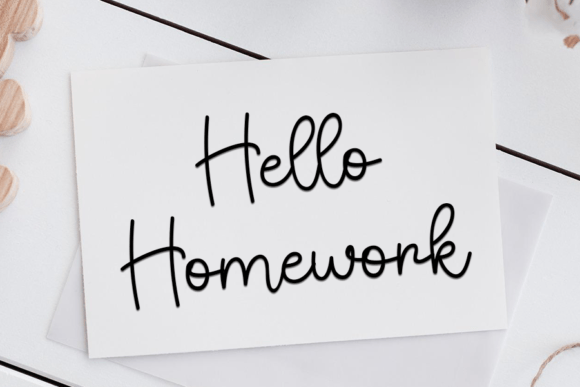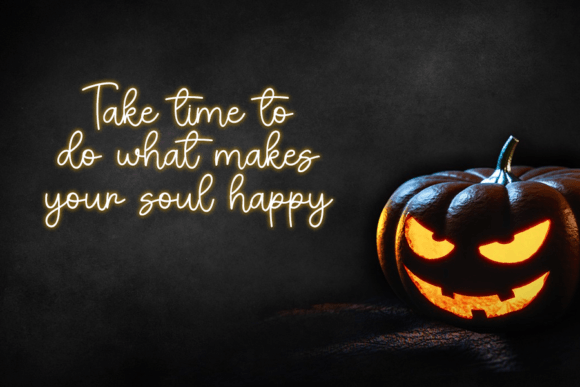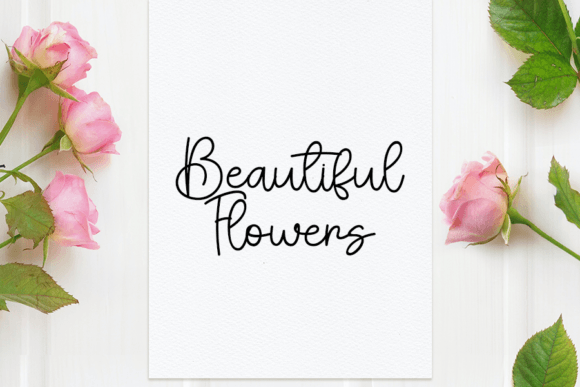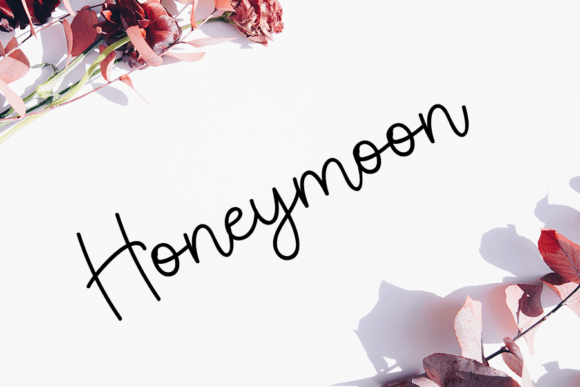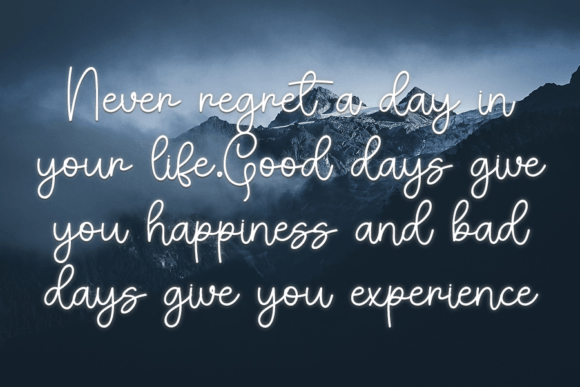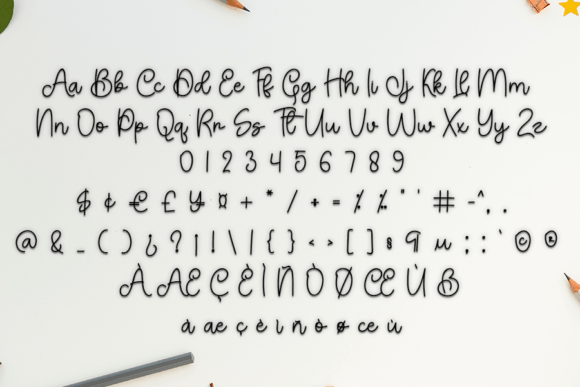
Hello Belove Font: A Delicate Handwritten Font for Romantic Designs
Hello Belove is a beautiful, delicate handwritten font that has been carefully crafted to add a touch of romance and uniqueness to your designs. This lovely font is perfect for creating stunning letters, invitations, food product labels, titles, and more. In this article, we’ll explore the features and benefits of Hello Belove Font, and how it can elevate your design projects.
What is Hello Belove Font?
Hello Belove Font is a carefully designed, handwritten font that exudes elegance and sophistication. Its delicate strokes and intricate details make it perfect for creating romantic and whimsical designs. The font is versatile and can be used for a wide range of projects, from wedding invitations and greeting cards to food labels and titles.
Key Features of Hello Belove Font
- Delicate Handwritten Style: Hello Belove Font features a delicate, handwritten style that is perfect for creating romantic and unique designs.
- Carefully Crafted: The font has been carefully crafted to ensure that every letter and stroke is precise and elegant.
- Versatile: Hello Belove Font can be used for a wide range of projects, including letters, invitations, food products, titles, and more.
- Elegant and Sophisticated: The font’s elegant and sophisticated design makes it perfect for creating high-end designs.
Benefits of Using Hello Belove Font
Using Hello Belove Font can bring numerous benefits to your design projects. Here are a few:
- Adds a Touch of Romance: The font’s romantic and whimsical design can add a touch of elegance and sophistication to your projects.
- Unique and Eye-catching: Hello Belove Font is unique and eye-catching, making it perfect for creating designs that stand out from the crowd.
- Easy to Read: Despite its delicate design, Hello Belove Font is easy to read, making it perfect for creating designs that require a personal touch.
- Customizable: The font can be customized to fit your design needs, allowing you to create unique and personalized designs.
Use Cases for Hello Belove Font
Hello Belove Font is versatile and can be used for a wide range of projects. Here are a few use cases:
- Wedding Invitations: The font’s romantic design makes it perfect for creating stunning wedding invitations.
- Greeting Cards: Hello Belove Font can be used to create beautiful and elegant greeting cards for special occasions.
- Food Labels: The font’s delicate design makes it perfect for creating labels for food products, such as baked goods, chocolates, and more.
- Titles and Headings: Hello Belove Font can be used to create elegant and sophisticated titles and headings for blogs, websites, and more.
Tips for Using Hello Belove Font
Here are a few tips for using Hello Belove Font:
- Pair with Other Fonts: Hello Belove Font can be paired with other fonts to create a unique and eye-catching design.
- Use for Headings and Titles: The font is perfect for creating headings and titles that require a personal touch.
- Experiment with Colors: Hello Belove Font can be used with a variety of colors to create a unique and eye-catching design.
Hello Belove Font is a beautiful, delicate handwritten font that is perfect for creating romantic and unique designs. Its elegant and sophisticated design makes it perfect for a wide range of projects, from wedding invitations and greeting cards to food labels and titles. With its versatility and customization options, Hello Belove Font is a must-have for designers and crafters looking to add a touch of elegance and sophistication to their designs.